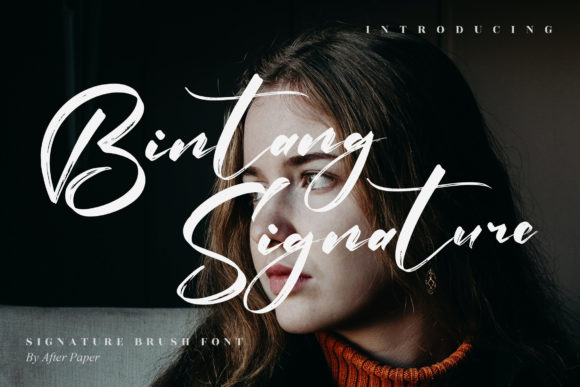
Introducing Bintang Signature Font - A Handcrafted Script with Unparalleled Elegance
Journey into the realm of timeless sophistication with Bintang Signature Font, a captivating script font that exudes a touch of luxury and charm. This meticulously crafted font is inspired by the beauty of handwritten signatures, capturing the essence of personal expression with its graceful curves and flowing strokes.
With Bintang Signature Font, you have the power to transform your creative projects into works of art. Whether you're a designer, a blogger, or simply someone who appreciates the beauty of typography, this font is sure to ignite your imagination and leave a lasting impression.
Step into a world where elegance meets versatility, where Bintang Signature Font seamlessly adapts to a myriad of projects. From enchanting wedding invitations to captivating logos, from heartfelt greeting cards to stunning social media posts, this font knows no bounds. Its versatility is a testament to its timeless appeal, making it a must-have for any creative toolbox.
But it's not just versatility that sets Bintang Signature Font apart. It's the emotional connection it fosters that truly makes it shine. Each letter, each stroke, is imbued with a sense of warmth and authenticity, inviting viewers to immerse themselves in a world of heartfelt expression.
And with Bintang Signature Font being PUA encoded, you'll unlock a treasure trove of stunning glyphs and ligatures, effortlessly accessible at your fingertips. Unleash your creativity and let your designs dance with an array of captivating characters, adding depth and intrigue to every project you undertake.
So why settle for ordinary when you can embrace the extraordinary? Embrace the magic of Bintang Signature Font today and embark on a creative journey that will leave you breathless. Let your words dance with elegance, let your designs exude sophistication, and let your creativity soar to new heights.